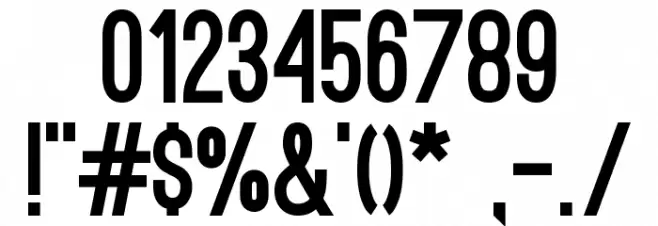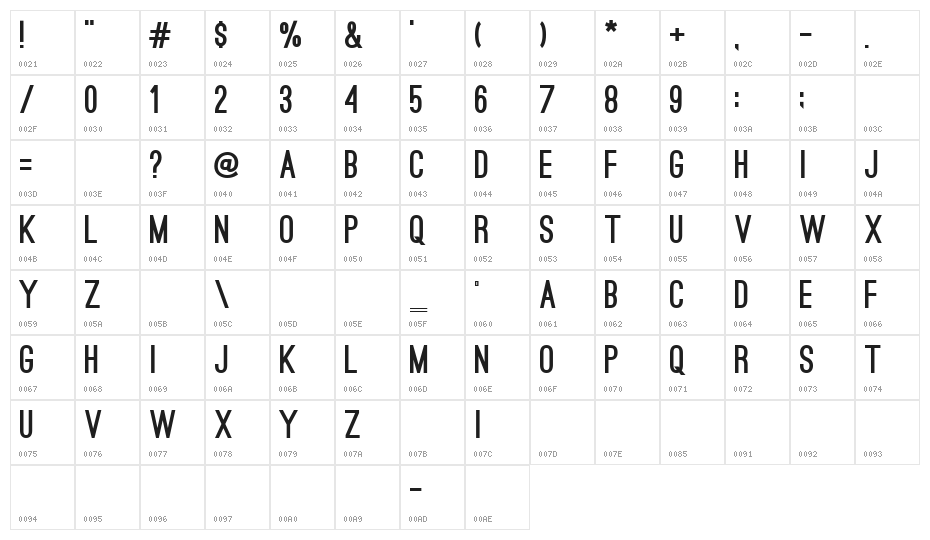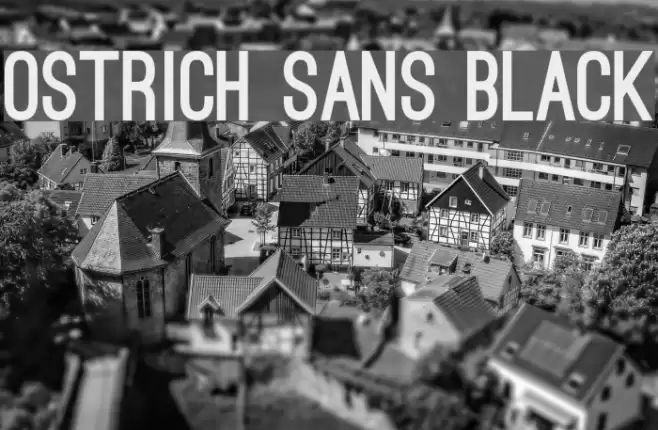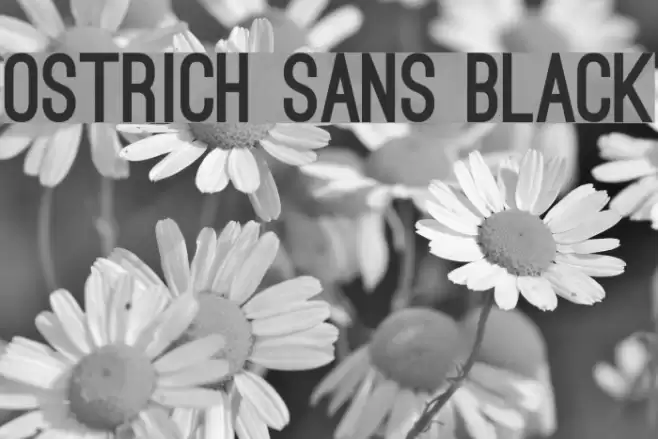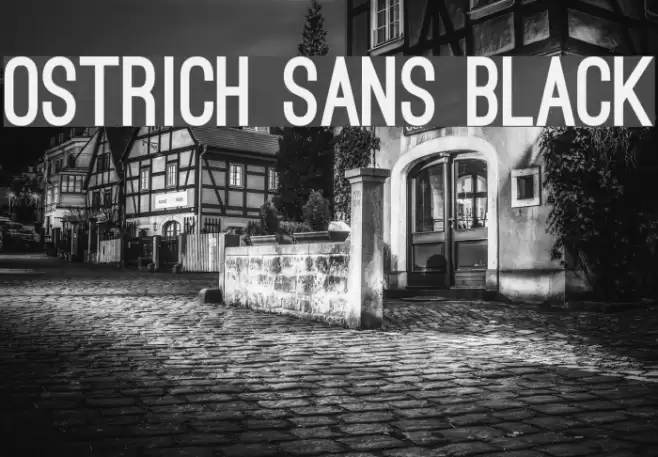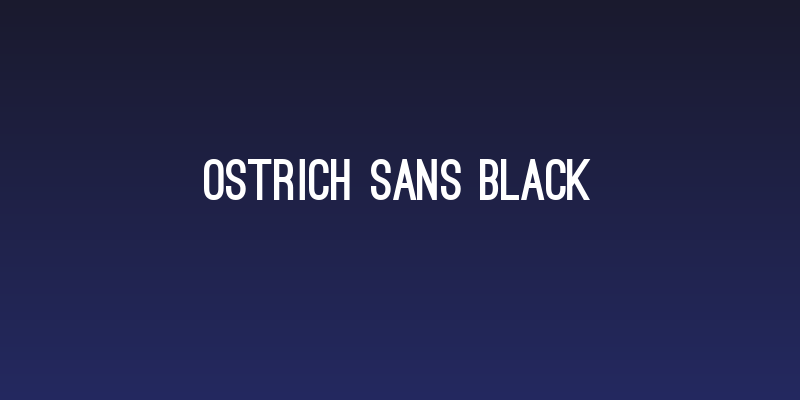
Ostrich Sans Black Font
Ostrich Sans Black Description
This font features a bold, sans-serif style with a modern and clean appearance. The characters are tall and narrow, giving a sleek and sophisticated look. The uppercase letters are uniform in height, while the lowercase letters maintain a consistent baseline. The numbers are clear and easy to read, matching the overall boldness of the font. Special characters are distinct and well-defined, ensuring readability across various contexts. The font's design is straightforward, making it versatile for a range of applications.
| Proposed Projects | Ideal for headlines, posters, branding, and digital media where a strong, modern presence is desired. |